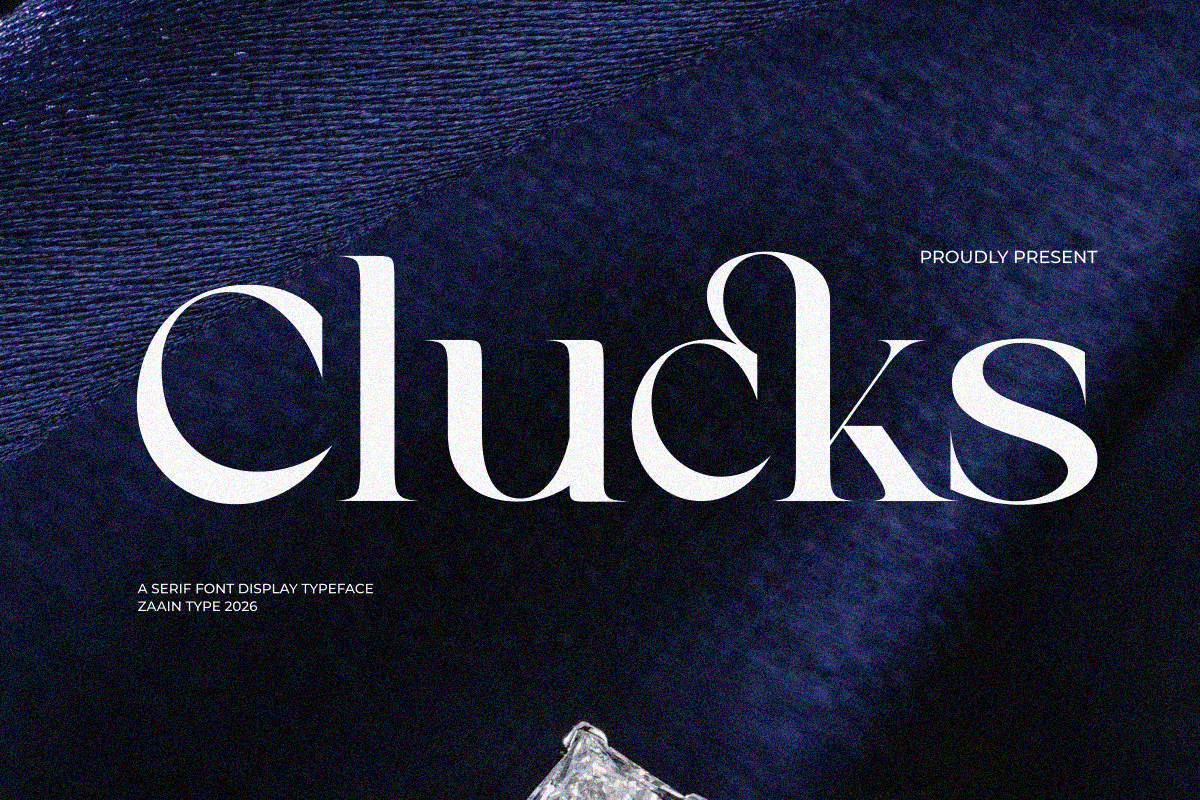
Clucks
Clucks commands attention with refined letterforms, balanced proportions, and a poised personality that lifts every creative project. Designed as a display serif, Clucks combines classical serif structure with a contemporary sensibility so designers can create work that feels both timeless and modern. Use Clucks to add clarity and character to headlines, logos, and premium packaging while maintaining excellent legibility where it matters.
Clucks Brings an Elegant Modern Serif Voice to Creative Projects
Clucks projects sophistication through decisive strokes and thoughtful details. The typeface emphasizes contrast and graceful terminals to produce a luxurious tonal range that reads strong at large display sizes and remains readable in short blocks of text. Designers will find Clucks reliable for expressing a refined voice across visual identities, editorial spreads, and product packaging. Every glyph supports purposeful expression: subtle flares and tapered serifs add personality without sacrificing clarity.
Why Clucks Works Well for Premium Design
Clucks focuses on purposeful shapes that communicate confidence. The typeface enhances hierarchy and scales cleanly from dramatic magazine headlines to elegant invitation lines. Its modern construction allows it to pair effortlessly with neutral sans-serifs or more expressive script accents. Because Clucks balances ornament with restraint, it supports both minimalist brand systems and richly detailed art direction.
Ideal Applications for Clucks in Premium Design Contexts
Clucks fits naturally in contexts that demand a sophisticated presentation and distinctive typographic voice. Use it where you want text to read as carefully considered and high-end.
Perfect For High-End Branding And Editorial Systems
• Luxury branding and boutique logos that require an elevated typographic identity
• Fashion and lifestyle editorials that need cinematic headlines and refined mastheads
• Cosmetic and skincare packaging where polished typography reinforces perceived quality
• Wedding stationery, invitations, and event collateral that benefit from romantic yet modern letterforms
• Book covers, photography watermarks, and premium product labels
• Social media visuals and advertising that require immediate, elegant impact
Distinctive Letterforms and Design Features That Define Clucks
Clucks blends classic serif cues with contemporary adjustments to deliver a versatile display voice. The letterforms present a measured contrast between stems and hairlines, complemented by carefully shaped terminals and junctions that catch the eye in headlines. Decorative touches exist but remain controlled, enabling designers to introduce flair without losing functional clarity.
Key Typographic Qualities Designers Will Appreciate
• Refined contrast for strong visual rhythm in large sizes
• Balanced counters and proportions for improved legibility
• Subtle serif details that read as hand-finished yet consistent
• Versatility across modern and vintage-inspired aesthetics
Practical Usage, Pairing, and Production Recommendations
To maximize Clucks’ impact, emphasize display use and reserve highly decorative alternates for focal elements. Set display sizes generously so the refined contrast and terminals can register, and use tighter tracking on logotypes to create compact, elegant marks. When pairing, choose a neutral sans-serif for body copy to maintain readability while allowing Clucks to carry the brand’s tone in headlines and subheads.
Workflow Tips for Designers and Producers
• Use Clucks for headlines and logotypes, and pair with a low-contrast sans for long-form text.
• Proof on final substrates for print packaging to validate ink absorption and contrast.
• Limit decorative swashes to feature words to preserve hierarchy and avoid clutter.
• When exporting final artwork, outline text only after confirming kerning and ligature choices.